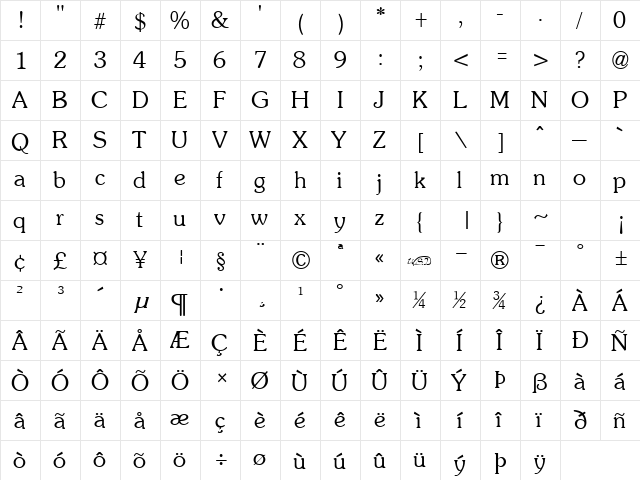
Soutane normal
Design Context for Soutane Typeface
Soutane offers clean, dependable letterforms without strong stylistic allegiance, making it a practical choice for designers who need flexibility.
Pro Tip: Pair Soutane with a font of contrasting weight or personality to build a more expressive typographic hierarchy.